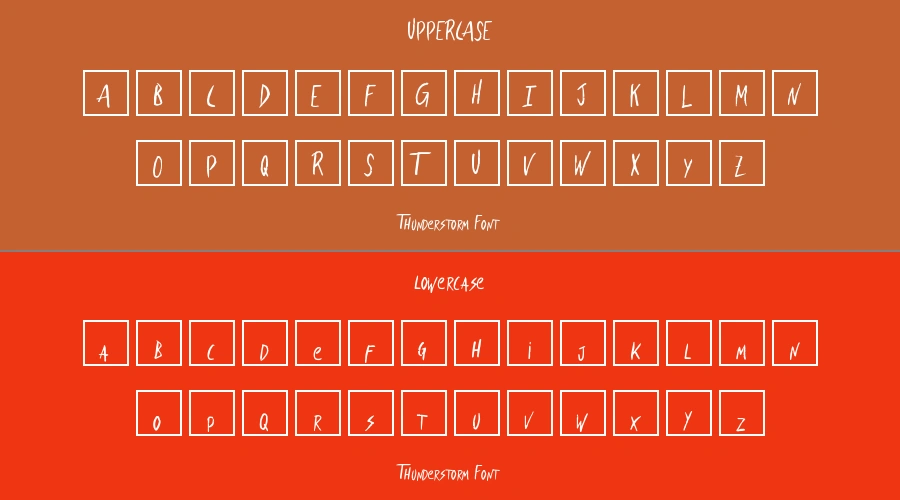
About Thunderstorm Font
Thunderstorm Font represents a sophisticated approach to type design, balancing rounded corners with visual impact. Perfect for product naming, this font family showcases impressive longevity and market relevance throughout its character set. Designers appreciate its versatility and reliability.
Designers will appreciate nuanced touches including impactful forms and oldstyle figures, adding sophistication to any project. These features become apparent in product names, where compatibility matters most. The careful treatment of cap height ratio and technical tradition ensures optimal performance.